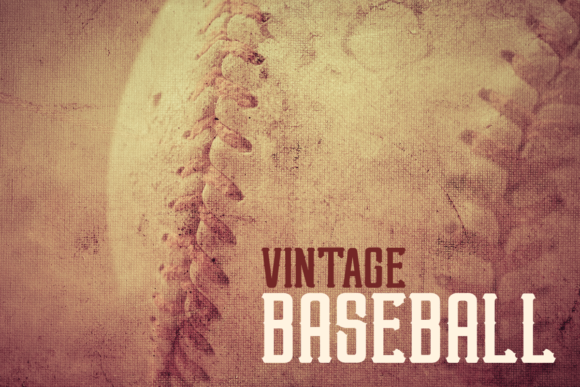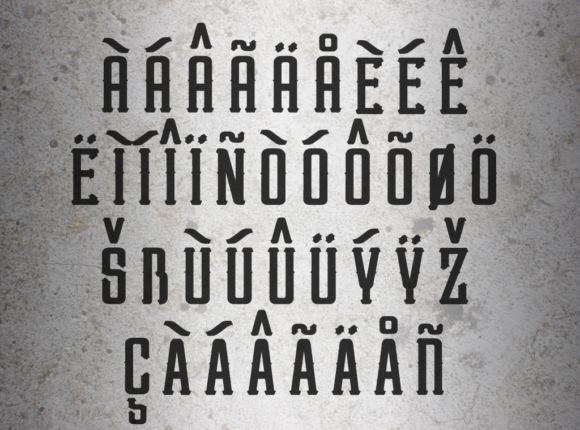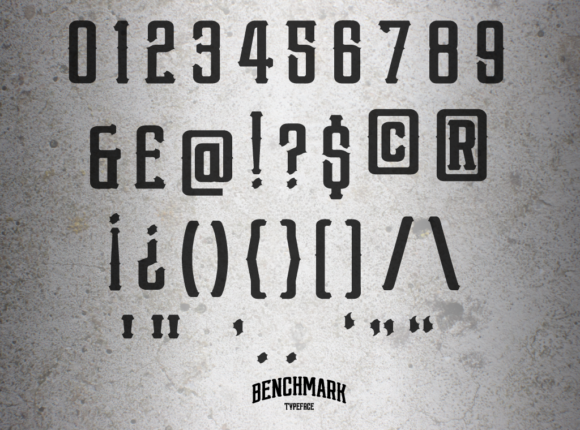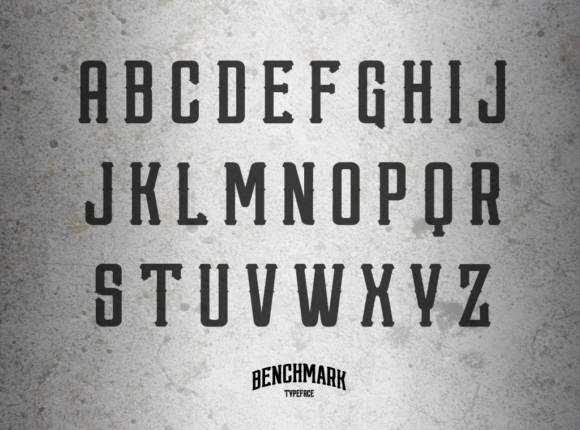
Benchmark Font: The Ultimate Display Font for Creative Projects
Are you tired of using the same old fonts in your designs? Look no further than Benchmark Font, an incredibly cool and bold display font that is sure to take your creations to the next level. Whether you’re a designer, crafty DIY enthusiast, or social media influencer, Benchmark Font is a wonderful asset to add to your font library.
What Makes Benchmark Font So Special?
Benchmark Font is a versatile and eye-catching display font that can be used for a wide range of projects, from logos and branding to posters, flyers, and social media graphics. Its bold and modern design makes it perfect for grabbing attention and making a statement. The font’s clean lines and geometric shape give it a sleek and sophisticated look that is sure to impress.
Key Features of Benchmark Font
- Bold and eye-catching design: Benchmark Font is designed to stand out and grab attention. Its bold lines and geometric shape make it perfect for creating striking headlines and titles.
- Versatile and flexible: Benchmark Font can be used for a wide range of projects, from logos and branding to posters, flyers, and social media graphics.
- Clean and modern design: The font’s clean lines and geometric shape give it a sleek and sophisticated look that is sure to impress.
- Easy to read: Despite its bold design, Benchmark Font is easy to read, even at smaller sizes.
How to Use Benchmark Font in Your Designs
Benchmark Font is incredibly easy to use and can be incorporated into your designs in a variety of ways. Here are a few ideas to get you started:
- Logos and branding: Use Benchmark Font to create a bold and eye-catching logo that will help your brand stand out.
- Posters and flyers: Benchmark Font is perfect for creating striking headlines and titles for posters and flyers.
- Social media graphics: Use Benchmark Font to create eye-catching social media graphics that will help your posts stand out.
- Packaging design: Benchmark Font can be used to create bold and eye-catching packaging design that will help your product stand out on store shelves.
Why You Need Benchmark Font in Your Font Library
Benchmark Font is a valuable addition to any font library. Its bold and eye-catching design makes it perfect for creating striking headlines and titles, while its clean lines and geometric shape give it a sleek and sophisticated look. Here are just a few reasons why you need Benchmark Font in your font library:
- Adds versatility to your designs: Benchmark Font can be used for a wide range of projects, from logos and branding to posters, flyers, and social media graphics.
- Helps your designs stand out: Benchmark Font’s bold and eye-catching design makes it perfect for creating striking headlines and titles that will help your designs stand out.
- Enhances your brand’s visual identity: Benchmark Font can be used to create a bold and eye-catching logo that will help your brand stand out and establish a strong visual identity.
| Font Name | Benchmark Font |
| Author | Alphabet Agency |
In conclusion, Benchmark Font is an incredibly cool and bold display font that is sure to be a wonderful asset to your font library. Its versatile and flexible design makes it perfect for a wide range of projects, from logos and branding to posters, flyers, and social media graphics. With its bold and eye-catching design, clean lines, and geometric shape, Benchmark Font is the perfect choice for designers and crafty DIY enthusiasts looking to add a touch of sophistication and style to their creations.